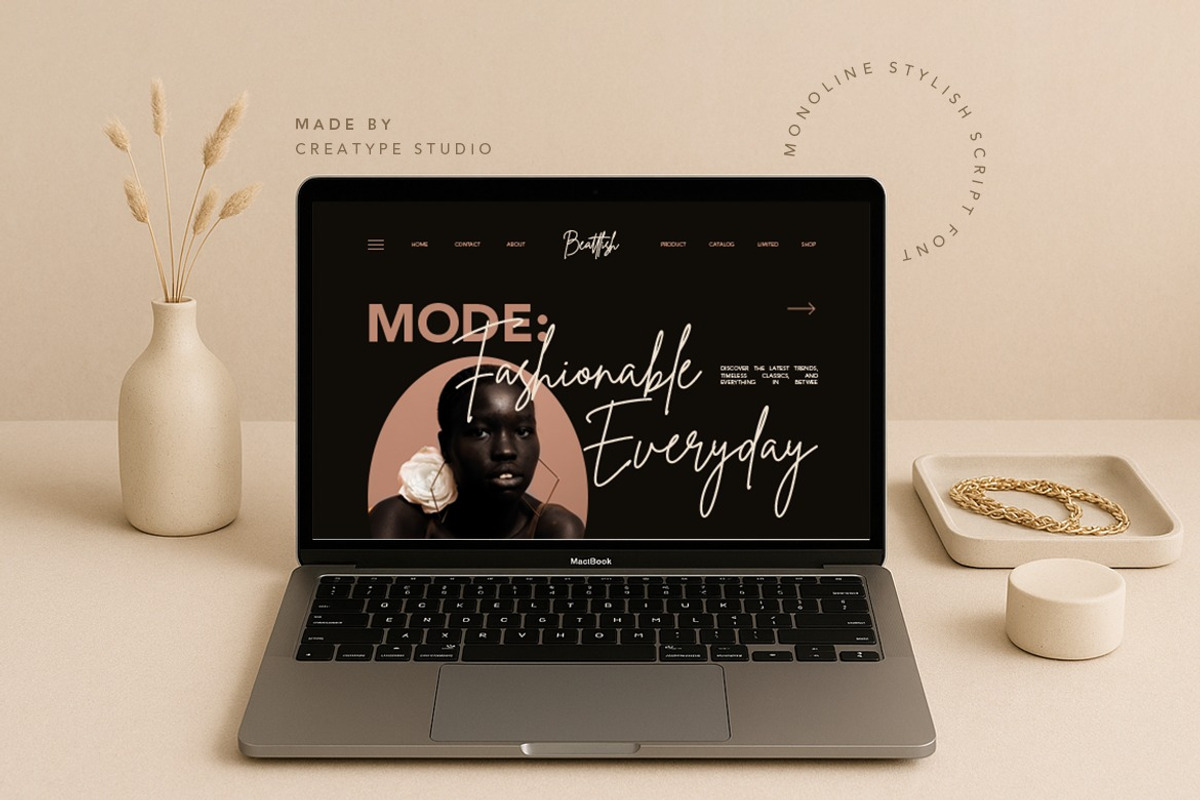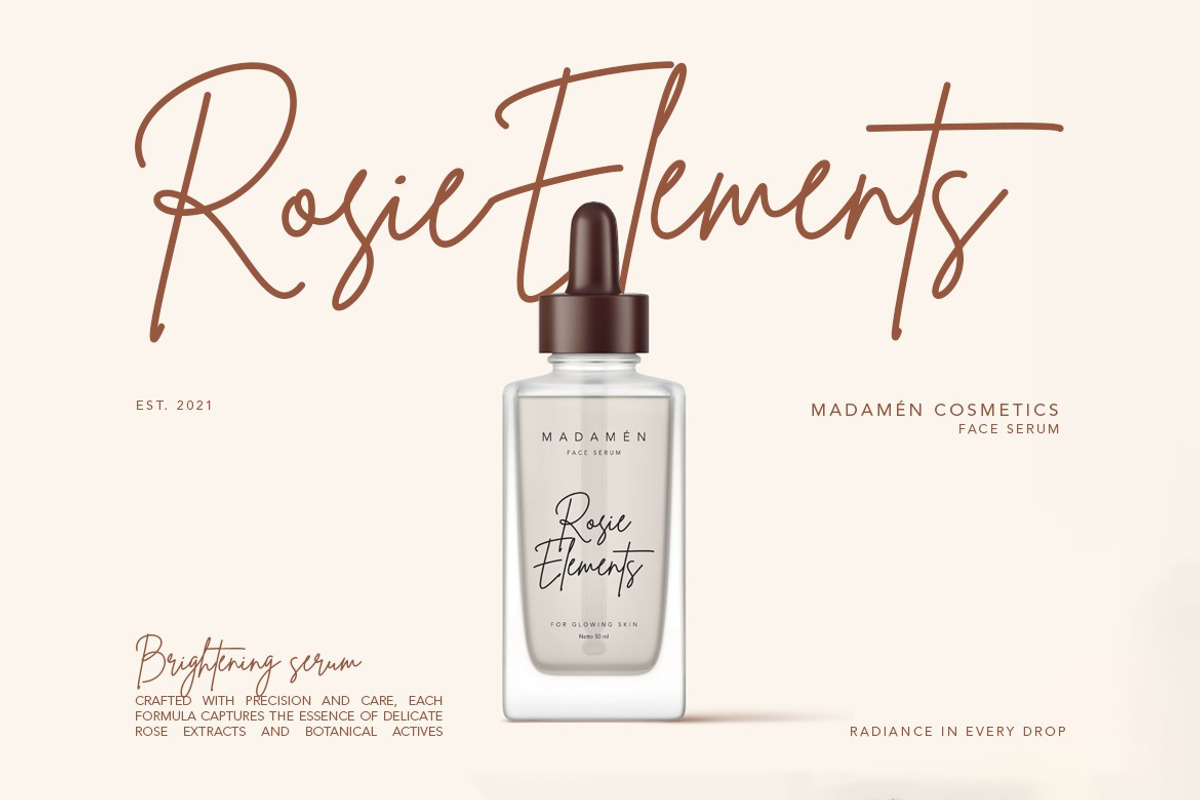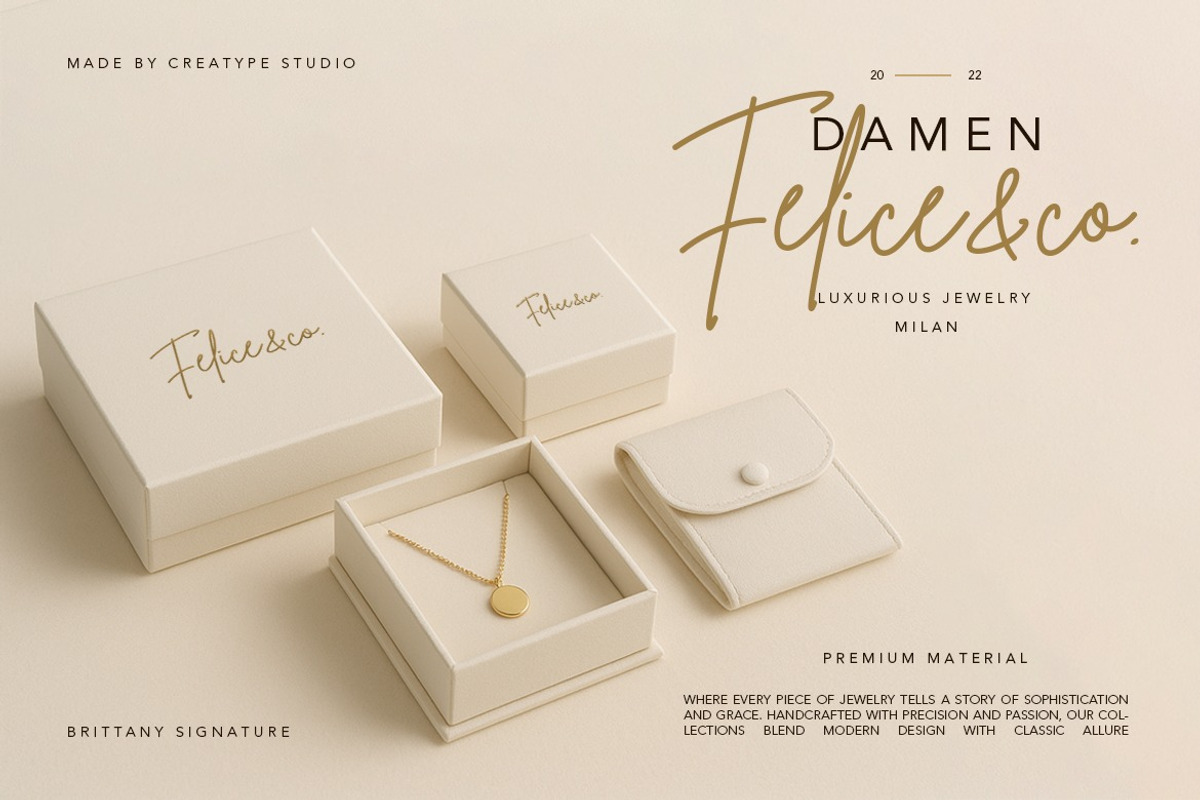
Brittany Font is a fashionable and sophisticated signature-style script font designed with unique curves and an elegant, inky flow. Inspired by natural handwriting, this font delivers a refined yet personal feel that instantly elevates modern branding and creative designs.
With its smooth strokes and stylish rhythm, Brittany Signature Script is perfect for projects that need a luxury handwritten touch without losing clarity or professionalism.
- Standard & multilingual glyphs
- Ligatures for smooth lettering flow